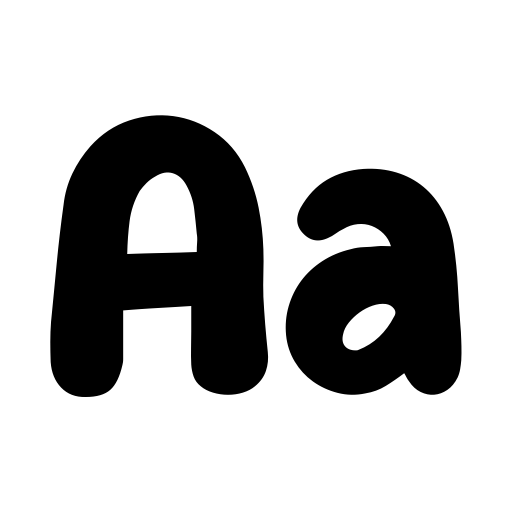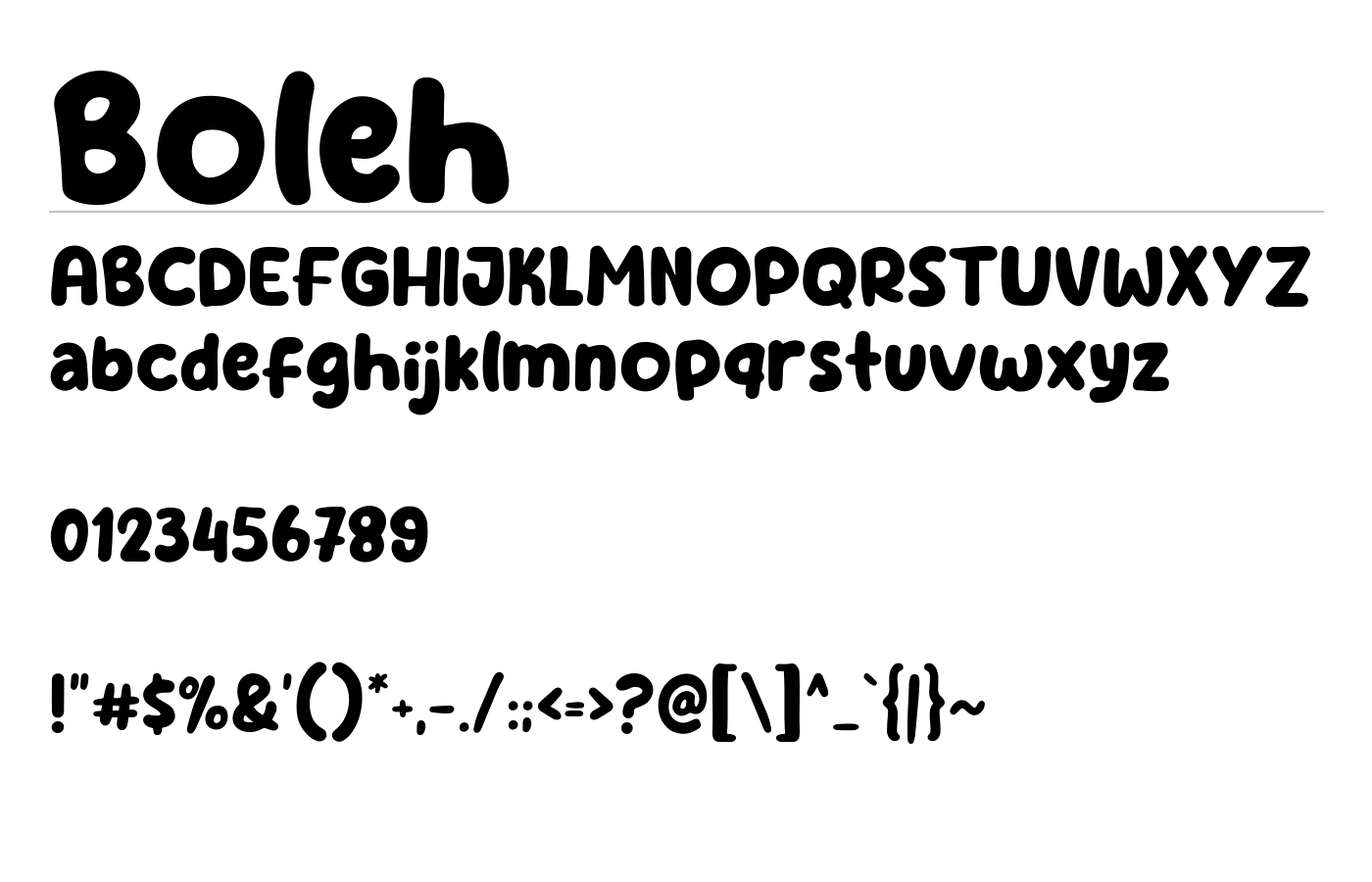
Boleh is a playful, rounded sans serif font with a casual and friendly vibe. Its bold weight and smooth, soft strokes give it a warm and approachable feel, making it perfect for informal designs, children’s content, and creative projects that want to convey fun and energy. This font works well in headlines, logos, and packaging where a lively and inviting tone is needed.
Boleh Font
About Boleh Font